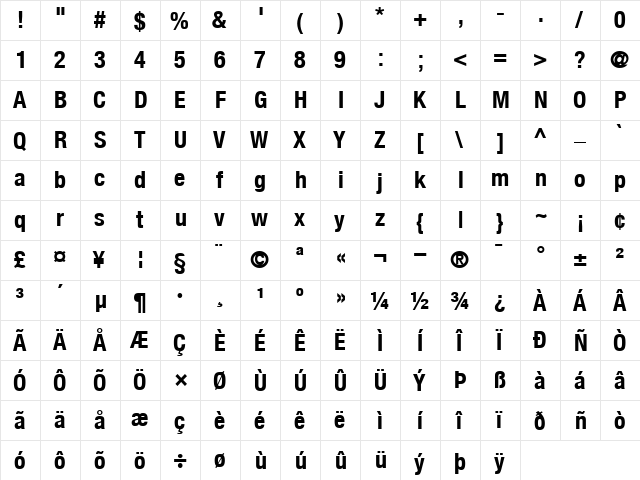
HelveticaNeueCond Bold
Design Context for HelveticaNeueCond Typeface
HelveticaNeueCond is a composed and adaptable typeface that performs quietly and consistently across a wide range of design contexts. The heavy weight commands attention and anchors typographic hierarchies. The condensed width makes it efficient for tight spaces without sacrificing legibility.